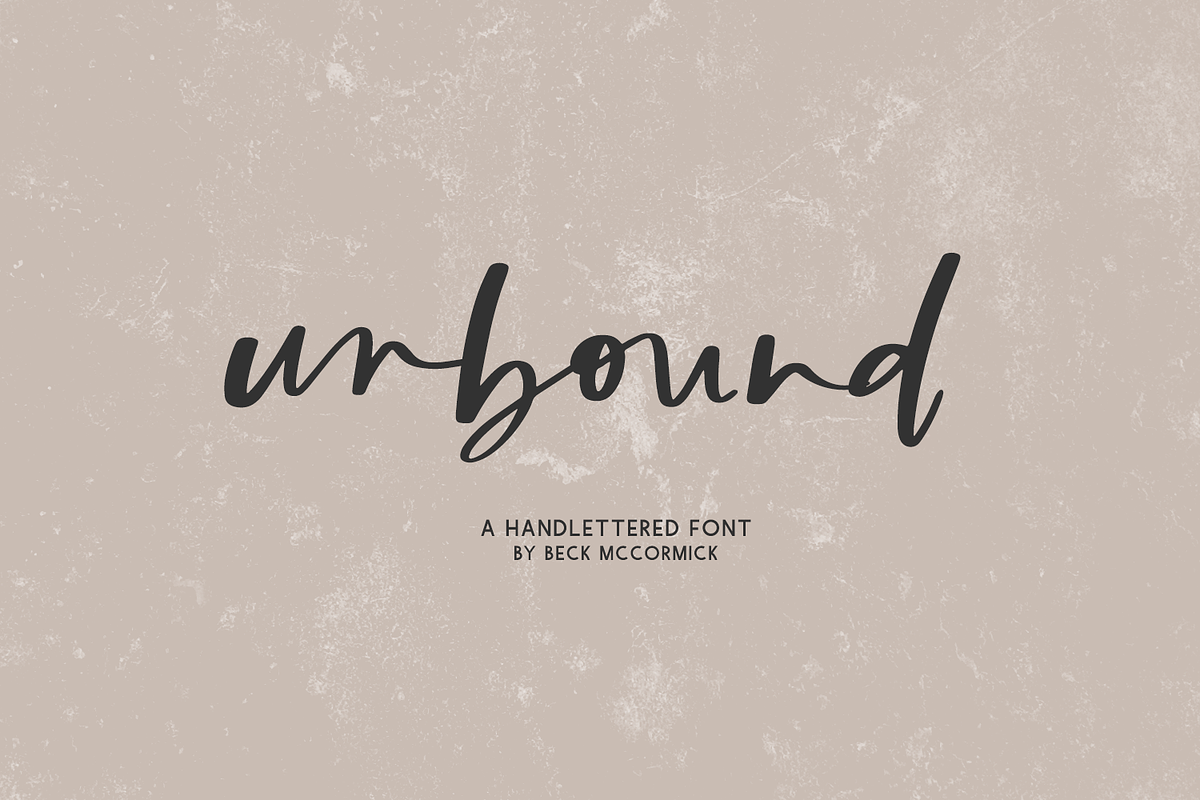
Unbound Signature Font Free Download is an elegant and sophisticated script typeface designed to mimic the flowing strokes of a handwritten signature. With its smooth curves and refined character, this font is perfect for personal branding, invitations, luxury product packaging, wedding stationery, and creative logos.
The fluidity and style of Unbound Signature convey a sense of authenticity and class, making it ideal for projects that require a personalized, artistic touch. Whether you're working on an elegant event invitation or creating a chic brand identity, this font brings elegance and finesse to your typography.